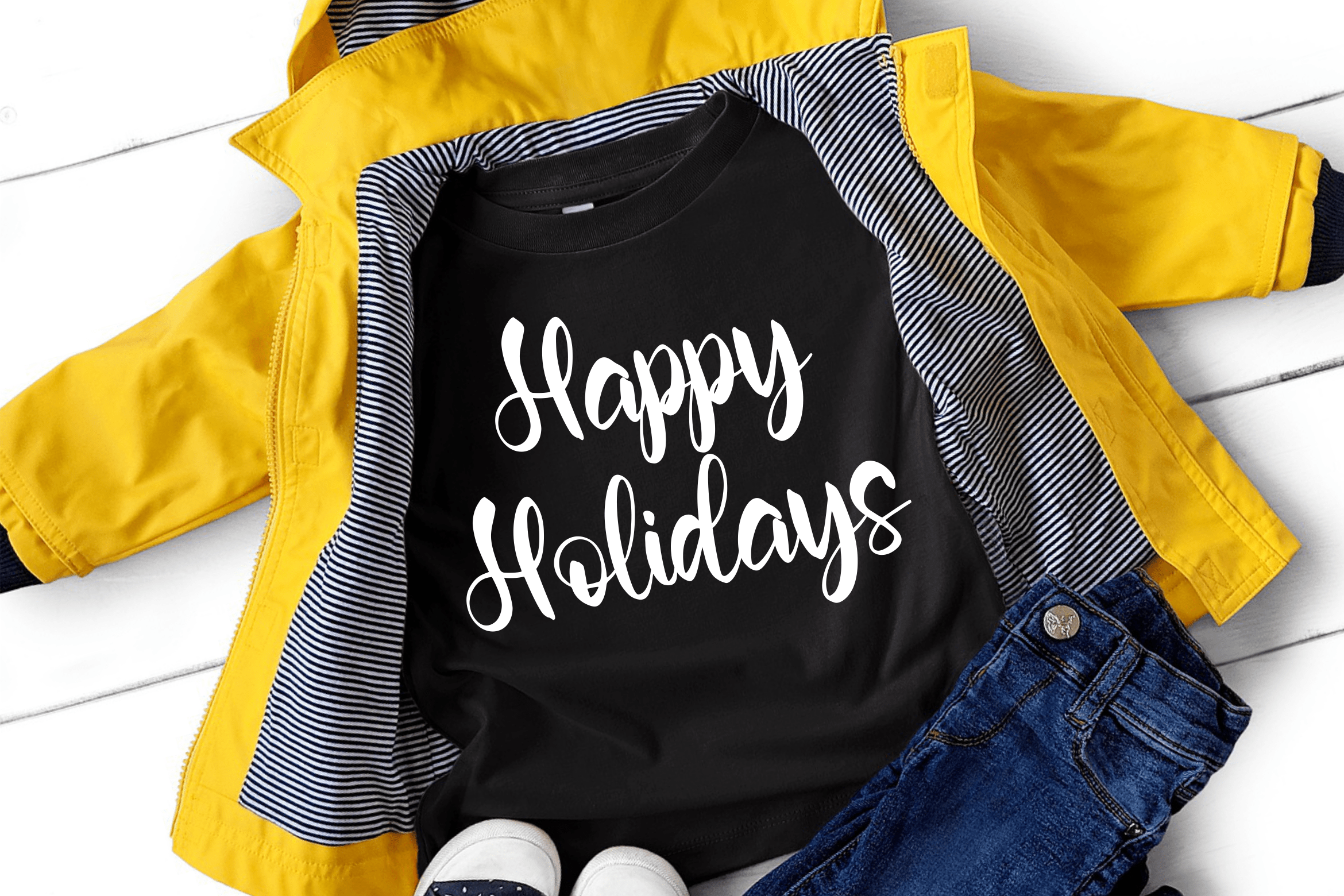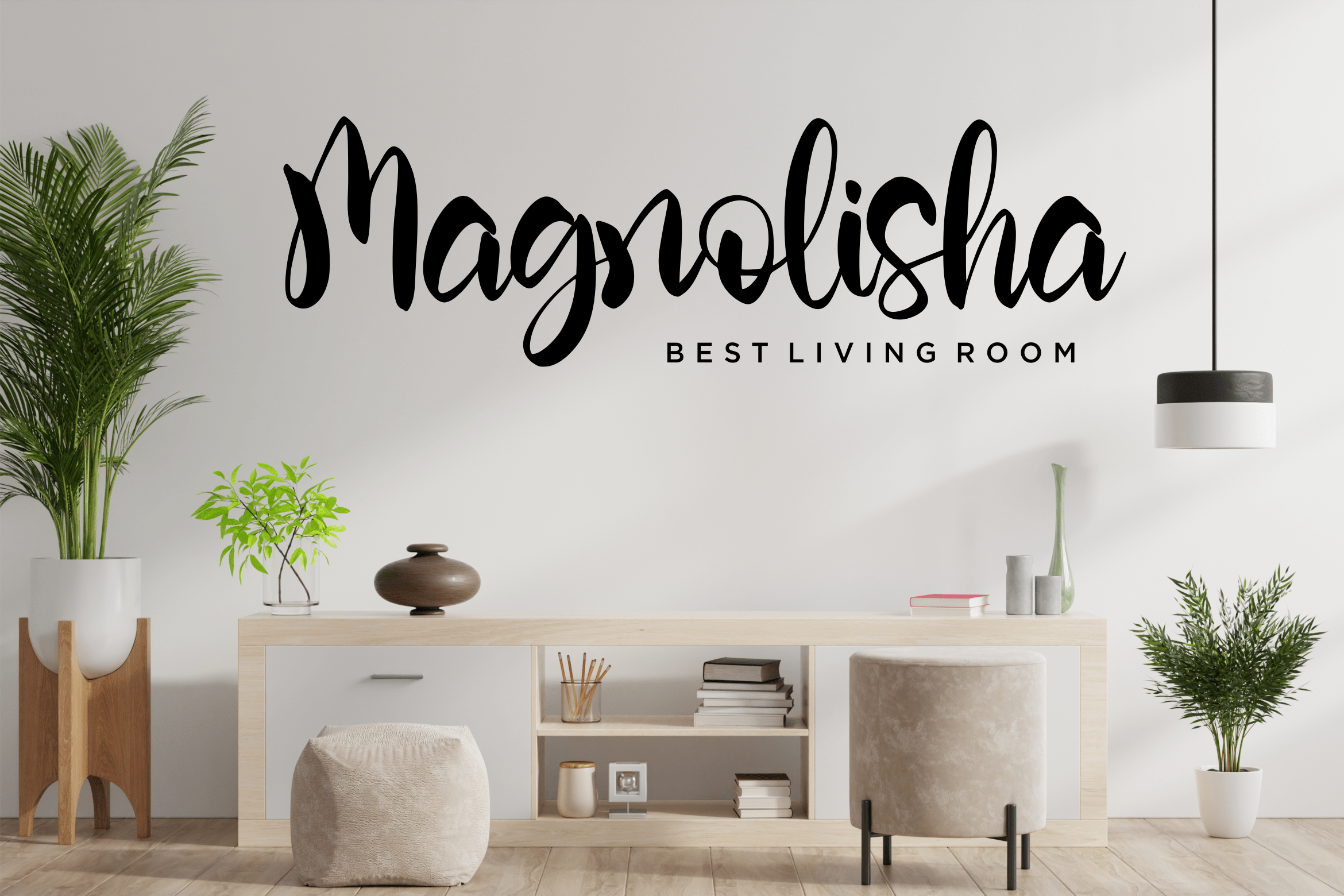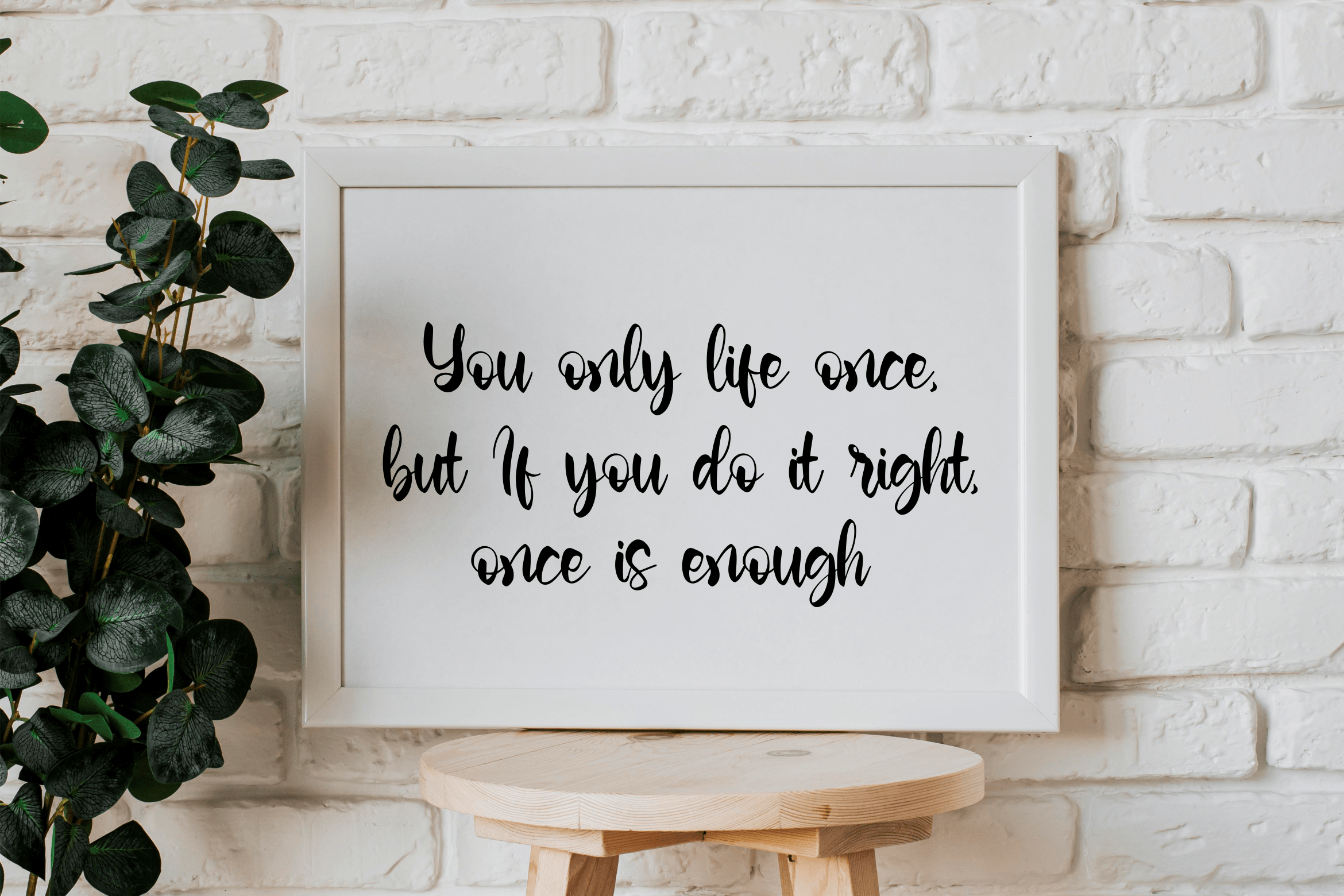
Bobbiewish Font
Bobbiewish Script Font
This is a unique and elegant handwritten font. It looks beautiful on a variety of designs requiring a personalized style, such as wedding invitations, thank you cards, weddings, greeting cards, logos and so on.